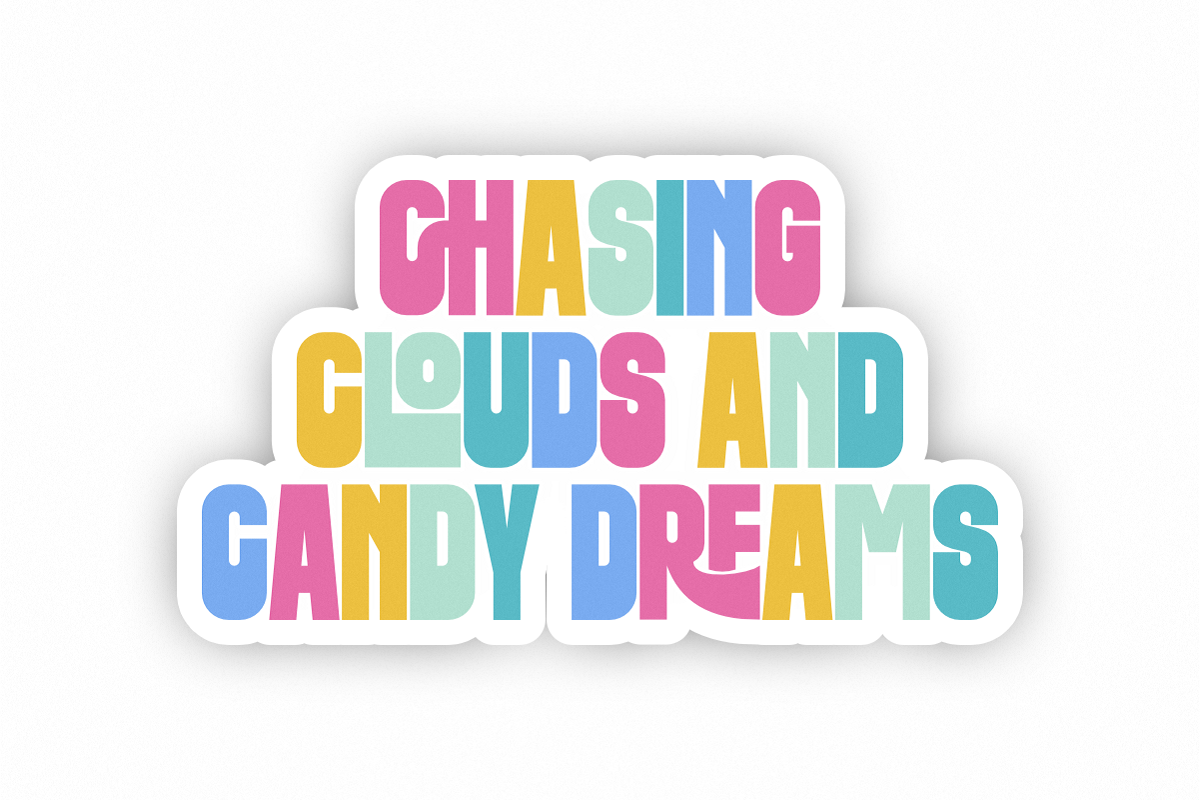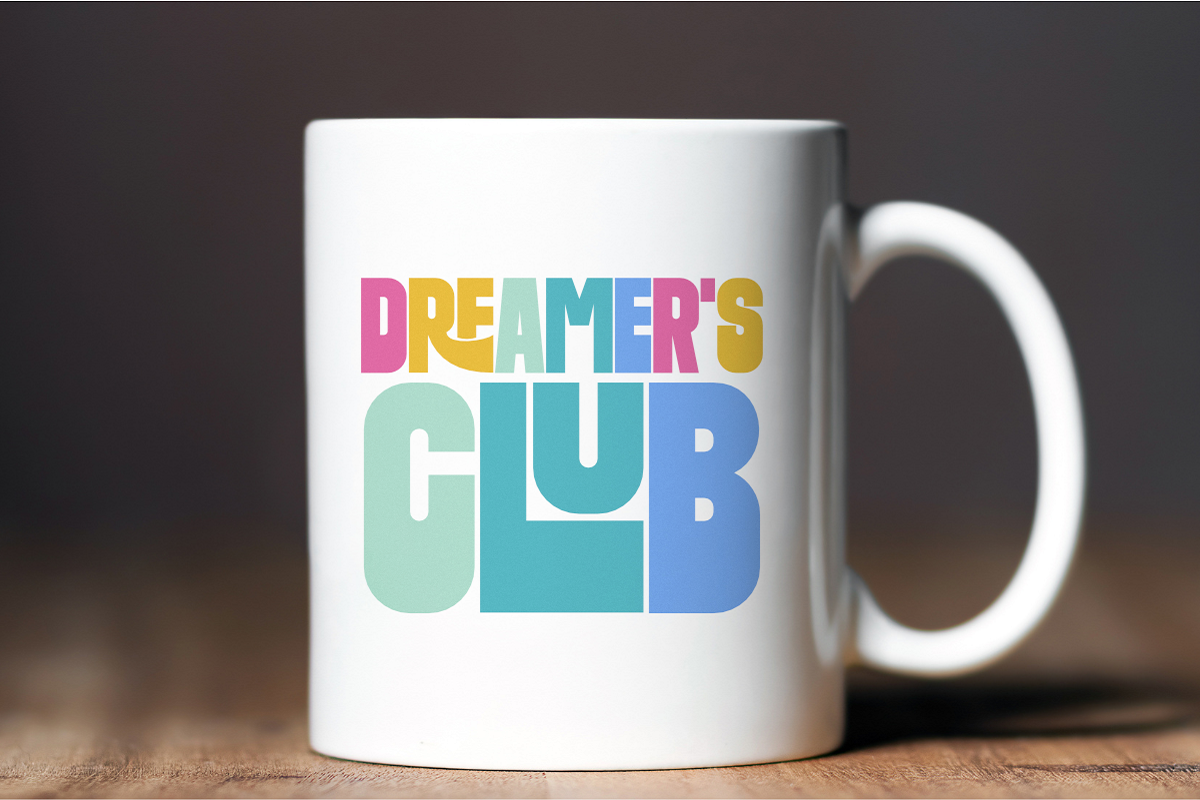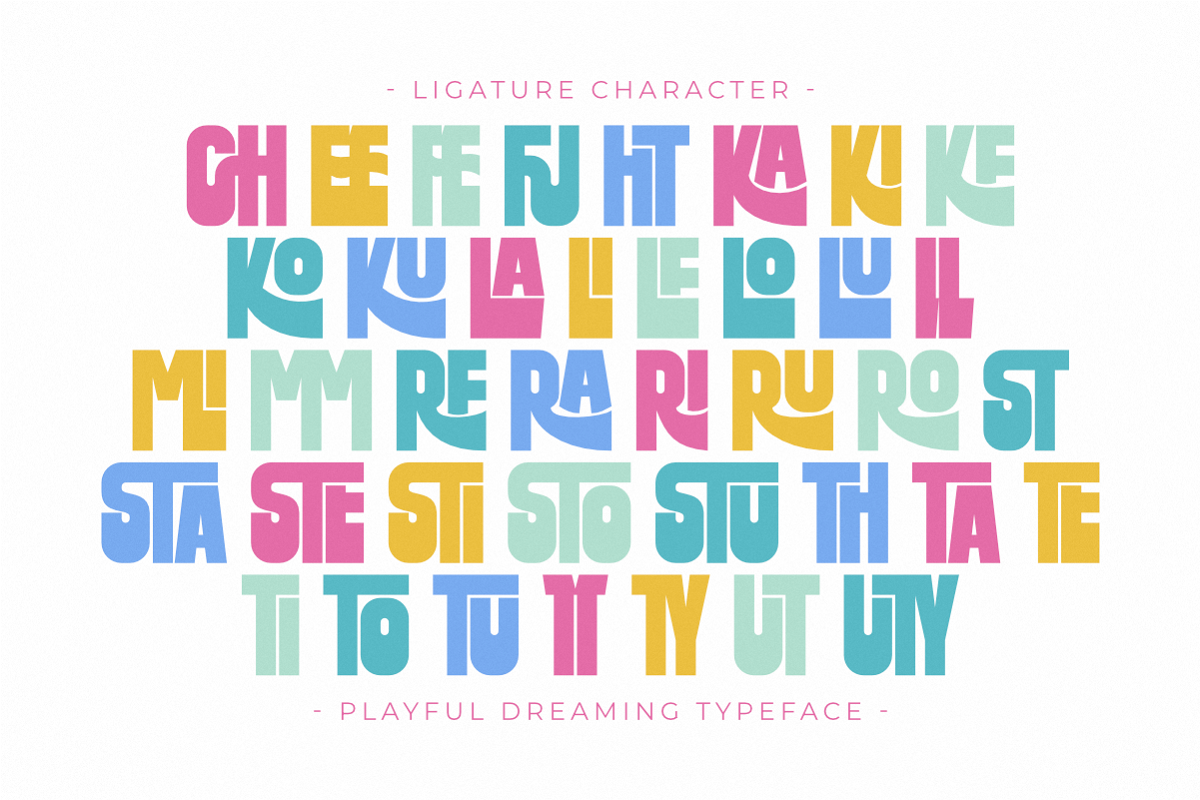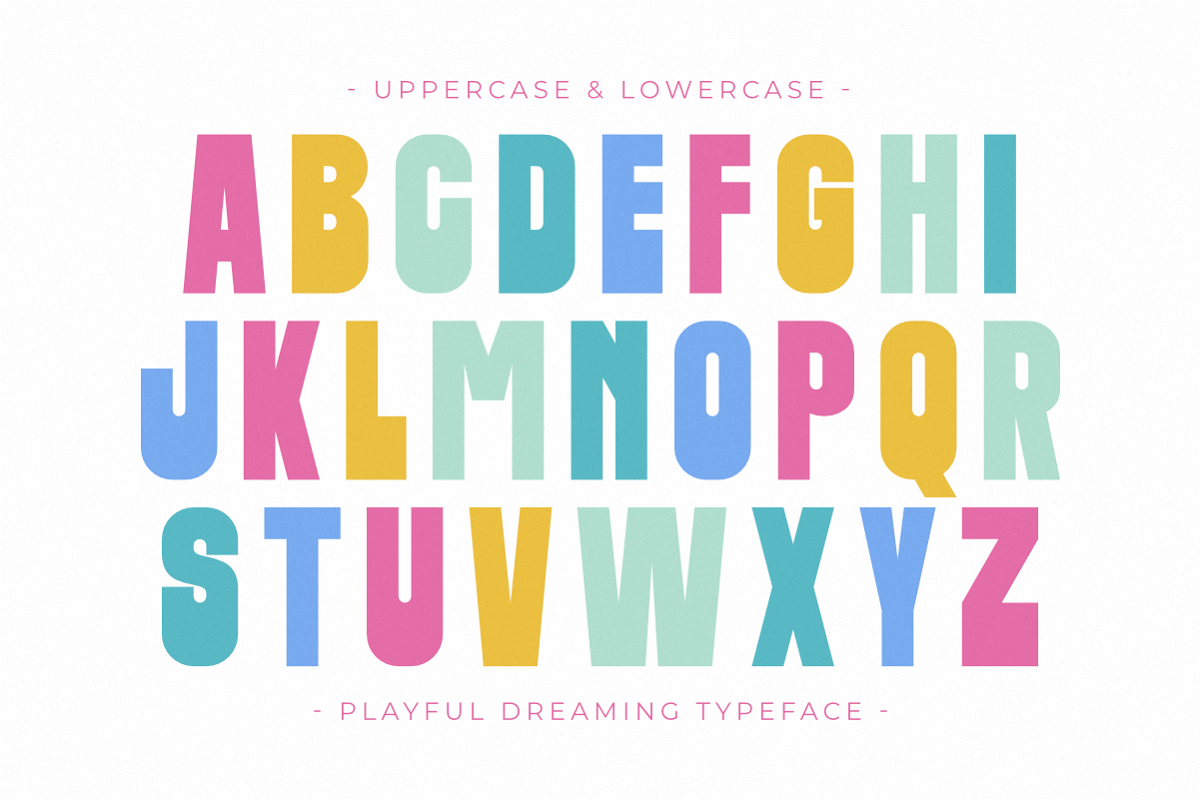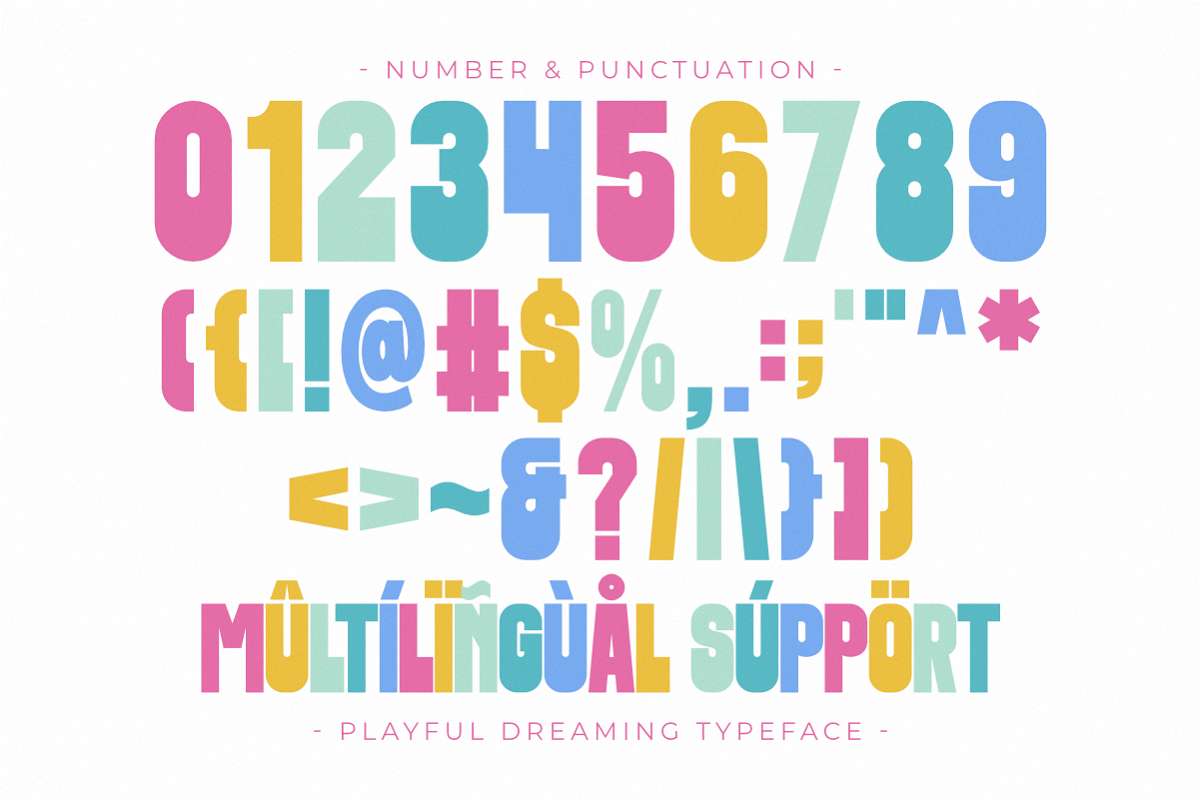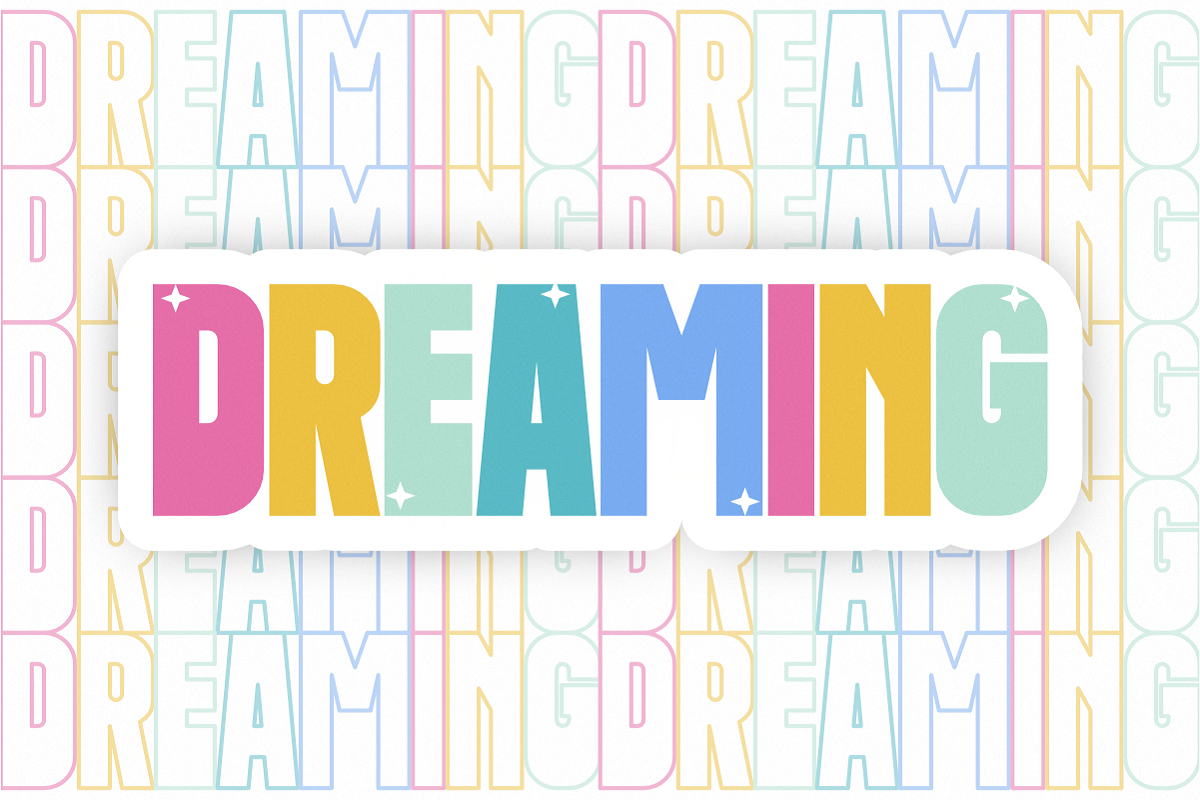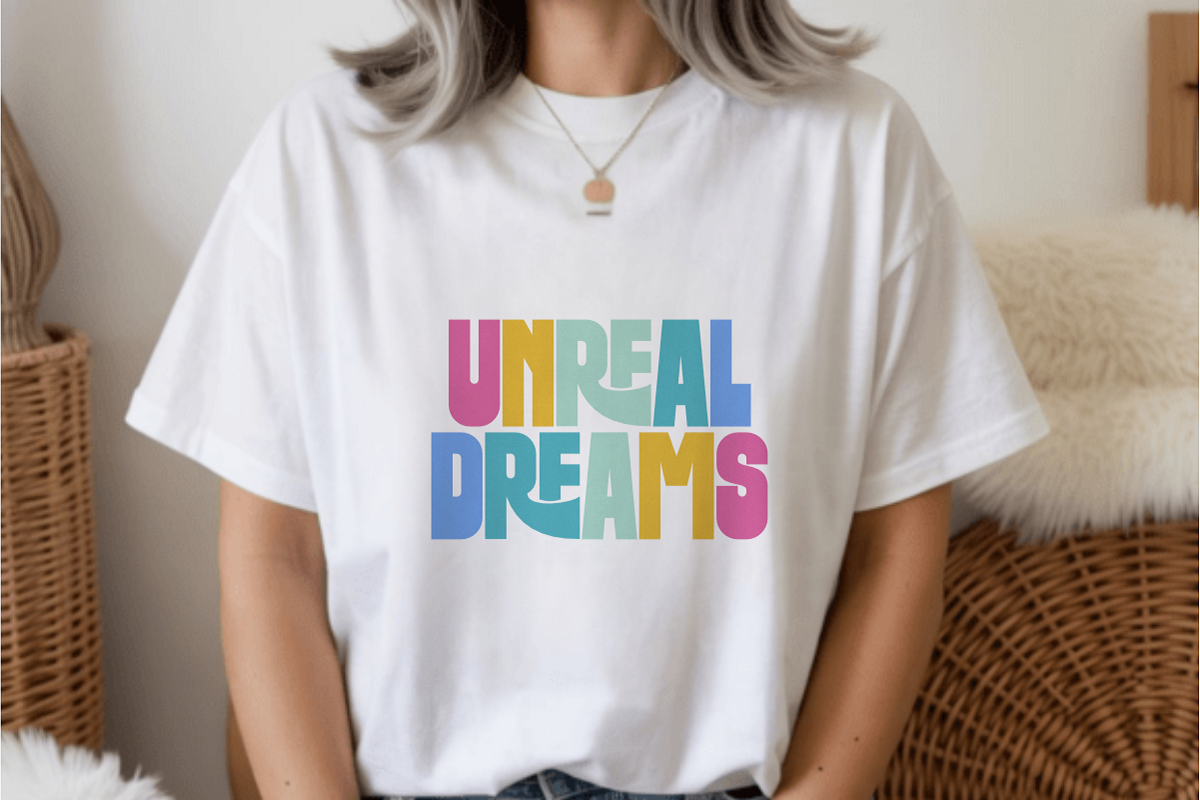
Playful Dreaming - Modern Display
Playful Dreaming is an enchanting and high-impact Modern Display font that perfectly blends a bold, condensed structure with creative, artistic ligatures. This typeface is designed to bring a whimsical yet professional touch to your creative projects, making it ideal for modern branding, children's book titles, playful logos, and social media headlines. Its tall, thick characters and unique letter connections offer a fresh, contemporary aesthetic that ensures your designs stand out in packaging, apparel, and digital marketing materials.